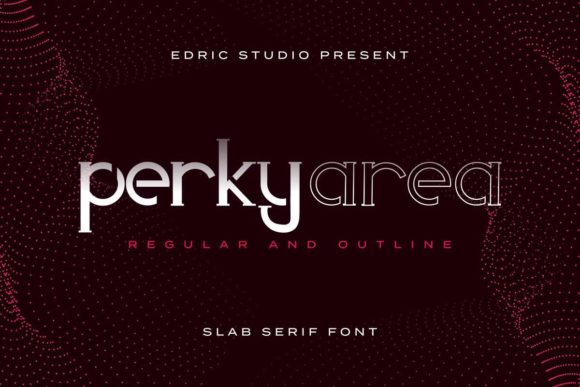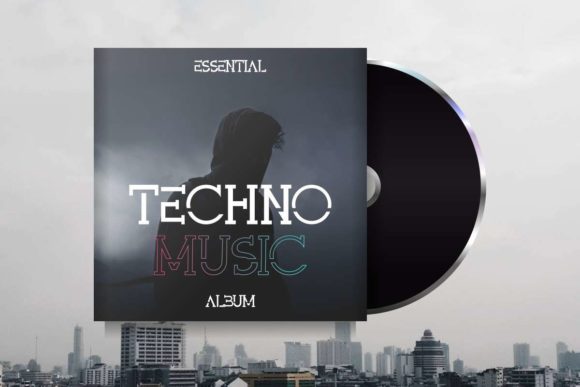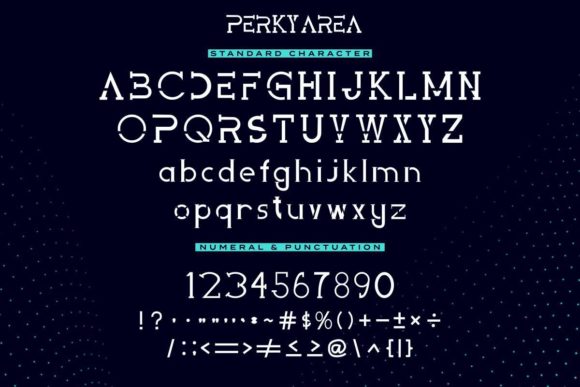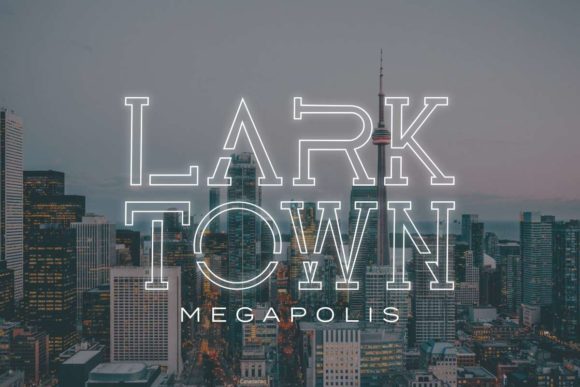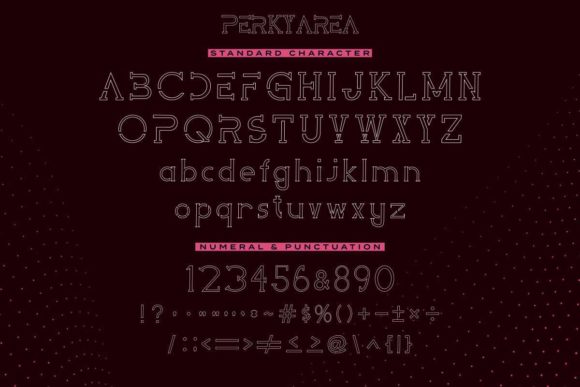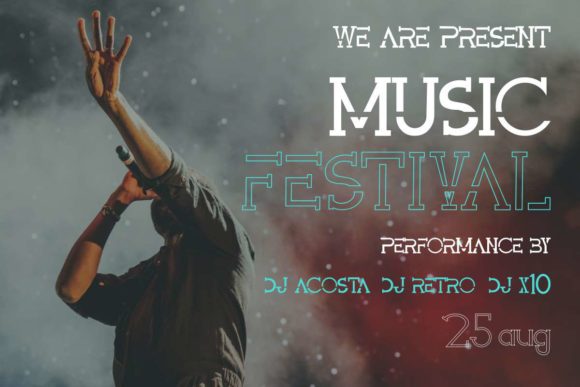
Introduction to Perky Area Font
Do you remember that moment when you’re brainstorming ideas for a creative project, and suddenly, the perfect font pops into your head? It’s like a spark of inspiration that sets your imagination ablaze. For designers, finding the right font can make all the difference between a good design and a great one.
One such font that’s sure to bring a smile to your face is the Perky Area Font. This delightful display font boasts a unique look that’s perfect for adding a touch of whimsy to your designs. Whether you’re working on a logo, poster, flyer, or movie title, the Perky Area Font is an excellent choice that’s sure to make your project stand out.
Key Features of Perky Area Font
- Unique, playful style with a transparent background for seamless integration
- Perfect for designers looking for a distinctive font to elevate their designs
- Designed to be a fun and engaging design element for any creative project
Honest Review: Perky Area Font
- What works well: ✨ The Perky Area Font is incredibly versatile and can be used for a variety of projects, from web design to print materials.
- ✨ The high-quality design ensures that the font looks great on any device, and the transparent background makes it easy to use in different scenarios.
One thing to keep in mind is that the font may not be suitable for all types of projects. For example, the Perky Area Font is not ideal for body text, as it can be a bit too playful for large blocks of text.
- Limitations: ⚠️ The Perky Area Font is best used for headings, titles, and other design elements where a bit of flair is needed.
- ⚠️ The font may not be suitable for projects that require a more professional or serious tone.
Overall, I’m thoroughly impressed with the Perky Area Font. It’s a fantastic design resource that can add a bit of personality to any project. With its free download option and high-quality design, it’s definitely worth checking out.
Perky Area Font
Tips for Getting the Most Out of the Perky Area Font
Here are some tips to help you get the most out of the Perky Area Font:
- Use the font on a transparent background to create a clean and minimalist design.
- Combine the font with other design elements to create a visually appealing design.
- Experiment with different font sizes and colors to create a unique design.
The Perky Area Font is suitable for various design projects, including:
- Presentations and slides
Alternatives to Perky Area Font
Pacifico Font is a beautiful, modern script font that’s great for creative projects requiring a laid-back, beachy vibe. It’s perfect for use in signage, posters, and other design elements where a relaxed, casual feel is desired. When to use: Designing a beach-themed brochure or a poster for a summer festival. How it compares: Pacifico Font has a more relaxed and casual look compared to Perky Area Font’s playful, energetic feel.